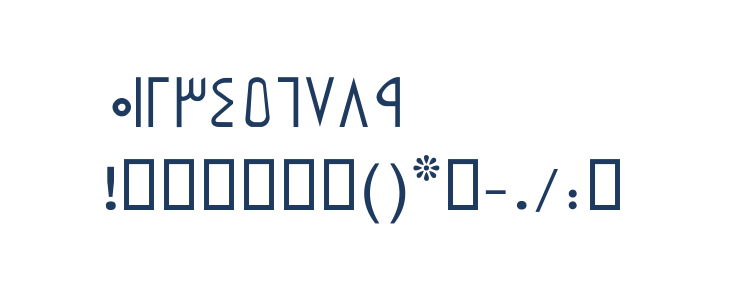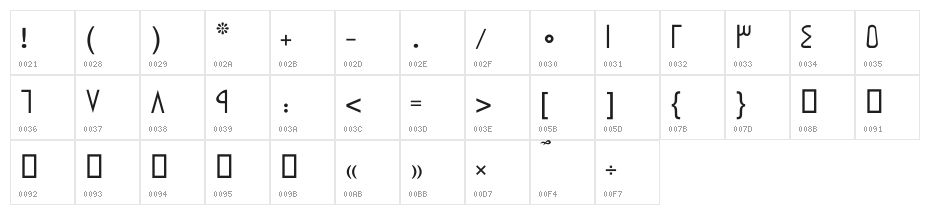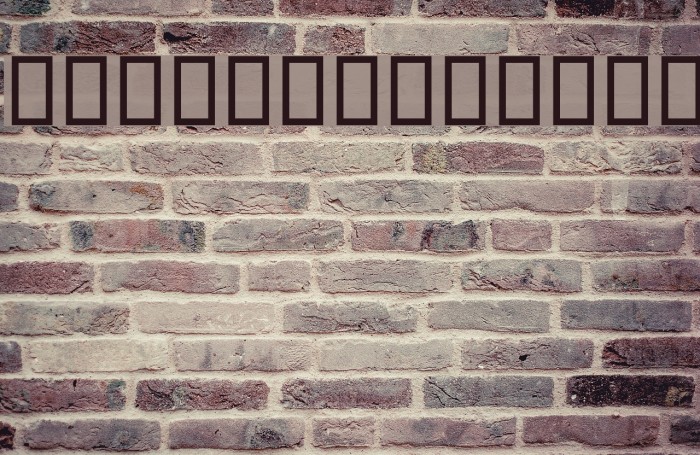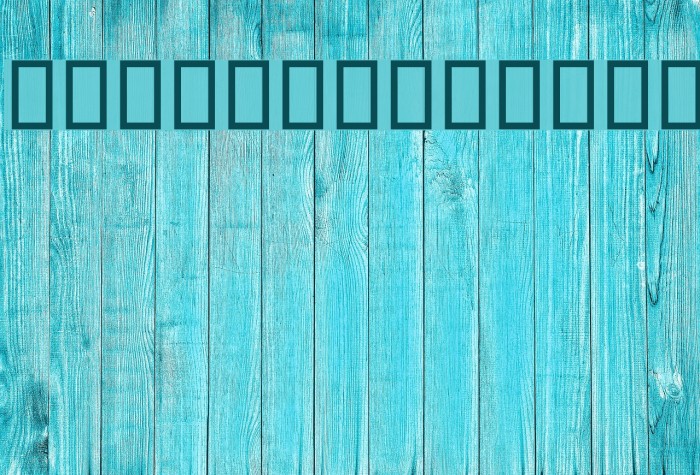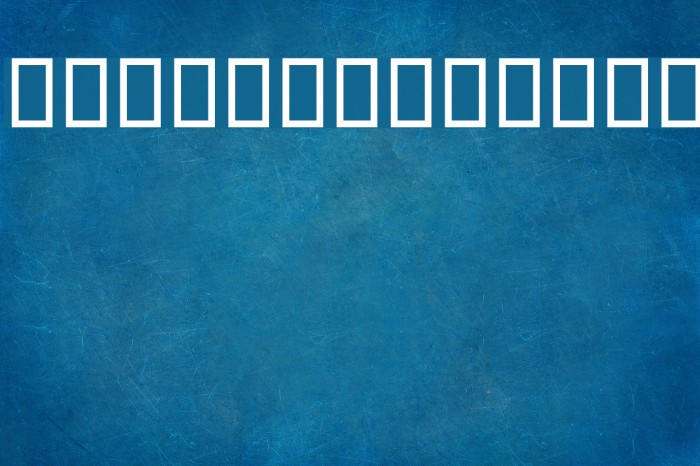
Hodaa Font
Hodaa Description
This font features a bold and modern design with a geometric structure. The characters are constructed with clean lines and uniform thickness, giving it a contemporary and minimalistic appearance. The uppercase letters are particularly striking, with a strong presence that makes them ideal for attention-grabbing headlines. The lowercase letters maintain the same geometric style, ensuring consistency throughout the text. Numbers and special characters are designed to match the overall aesthetic, providing a cohesive look. The font's simplicity and clarity make it versatile for various design projects.
| Proposed Projects | Ideal for branding, advertising, posters, and digital media where a modern and bold statement is needed. |